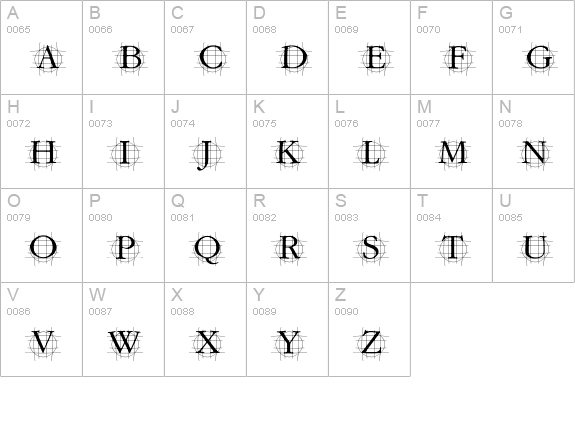
GrafRoundish Medium Font Details
GrafRoundish Medium is a balanced, medium-weight variant in the GrafRoundish typeface family \xE2\x80\x94 well suited to sub-headlines, navigation, and balanced editorial work.